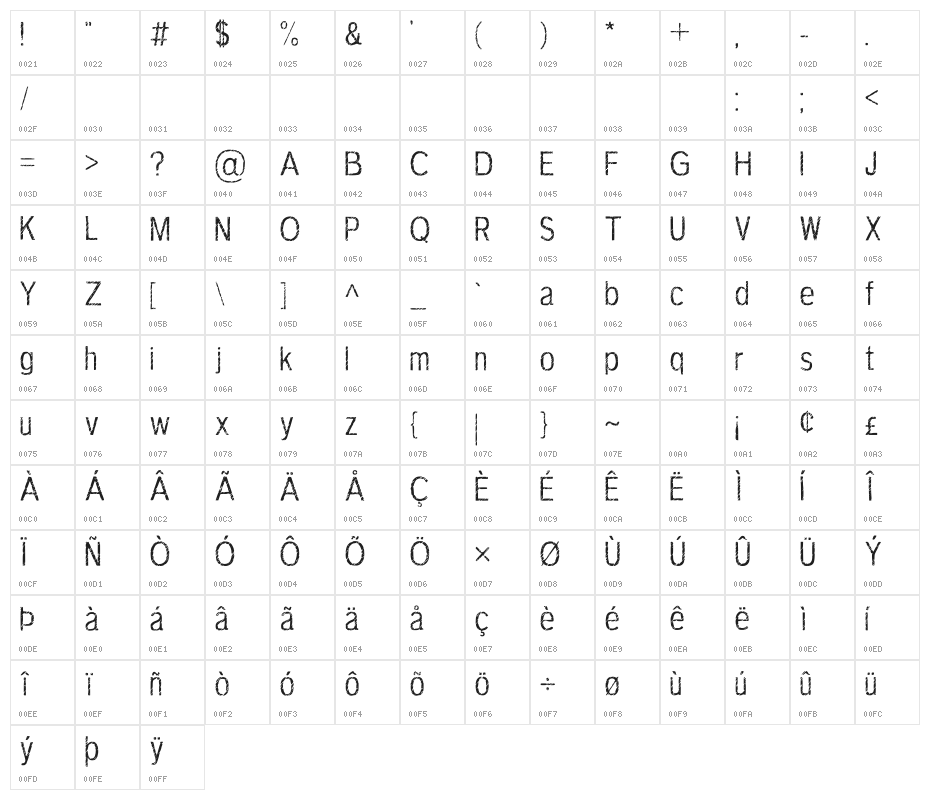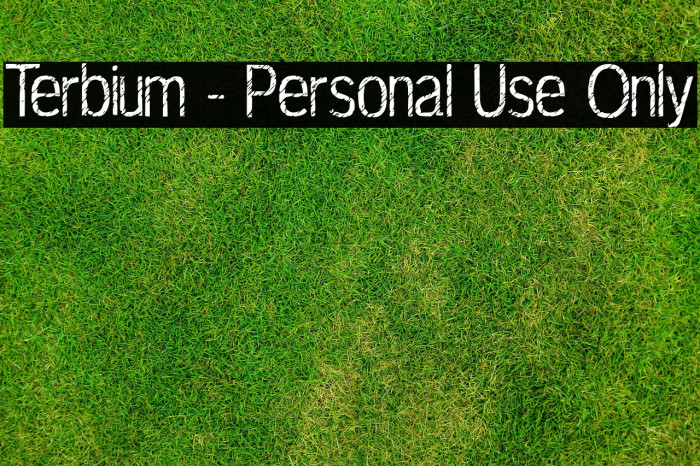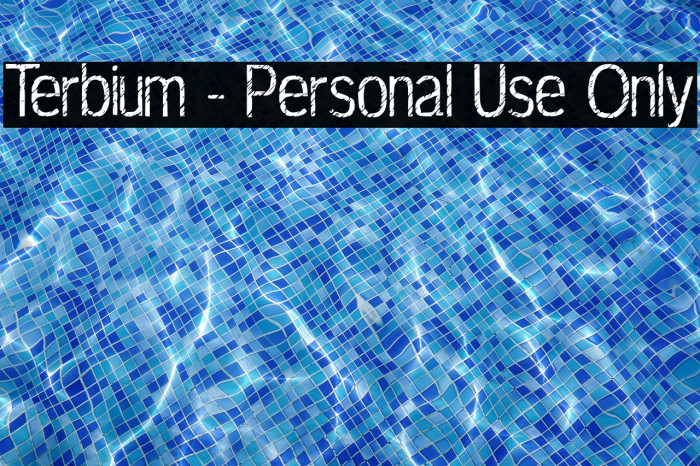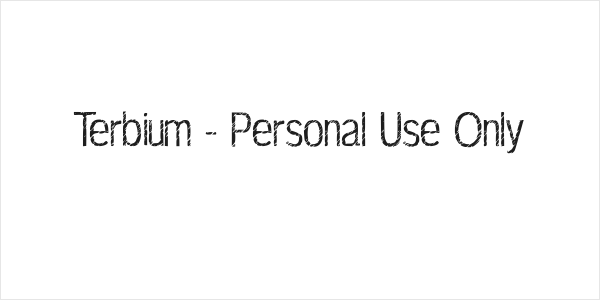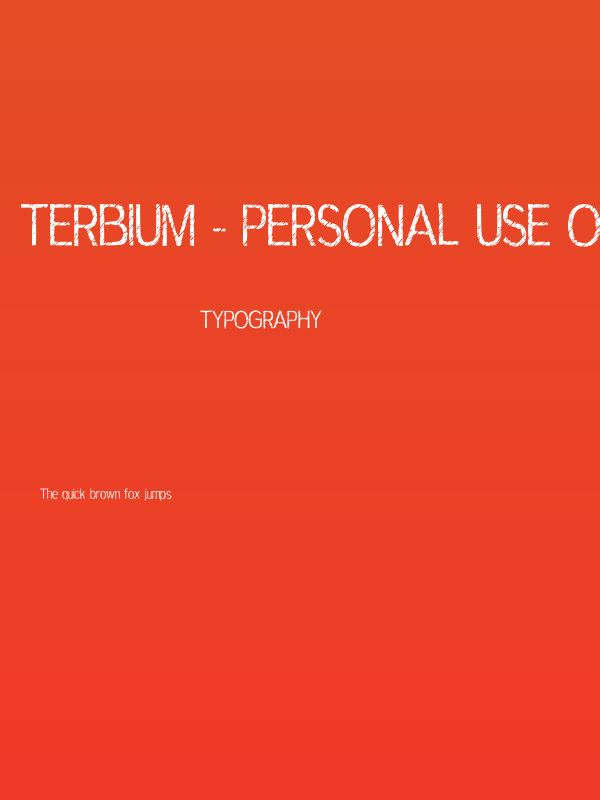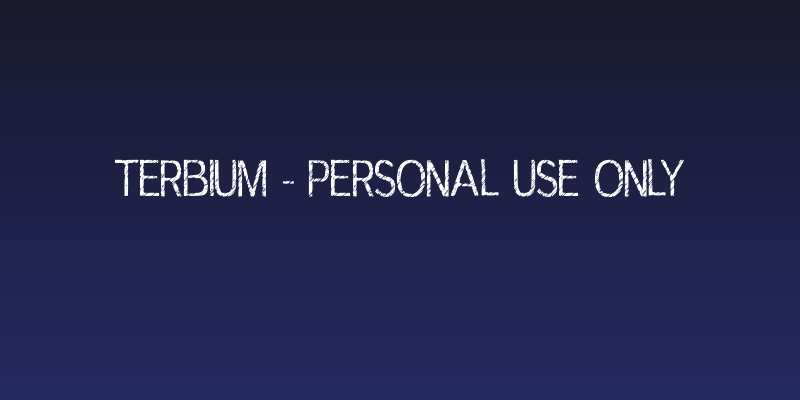
Terbium - Personal Use Only Font
Terbium - Personal Use Only Description
This font features a unique, distressed style with a textured, scratched appearance, giving it a rugged and edgy look. The uppercase and lowercase letters maintain a consistent design, with sharp, angular edges and a slightly condensed form. The numbers and special characters follow the same aesthetic, ensuring a cohesive appearance across all glyphs. The font's irregular texture adds a dynamic and energetic feel, making it suitable for projects that require a bold statement. Its distinct style is eye-catching and memorable, perfect for creative and unconventional designs.
| Proposed Projects | Ideal for posters, album covers, branding for edgy products, or any project needing a bold, unconventional look. |